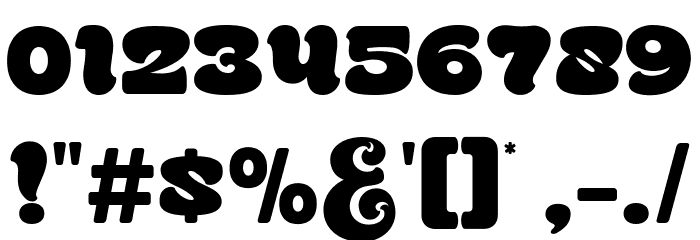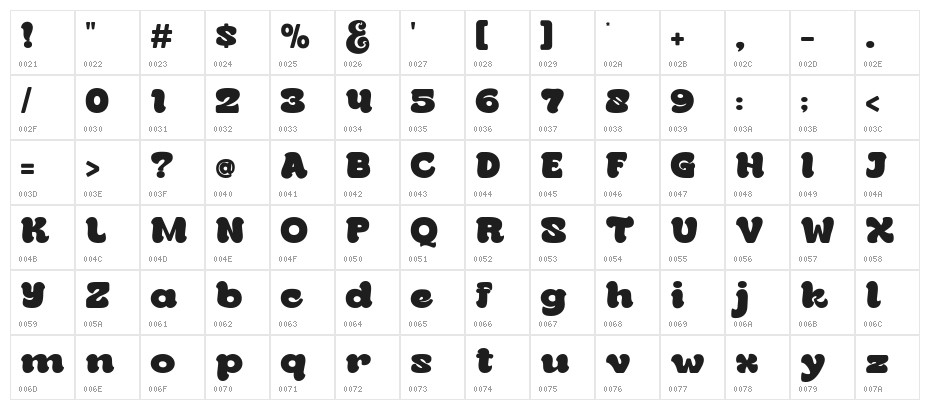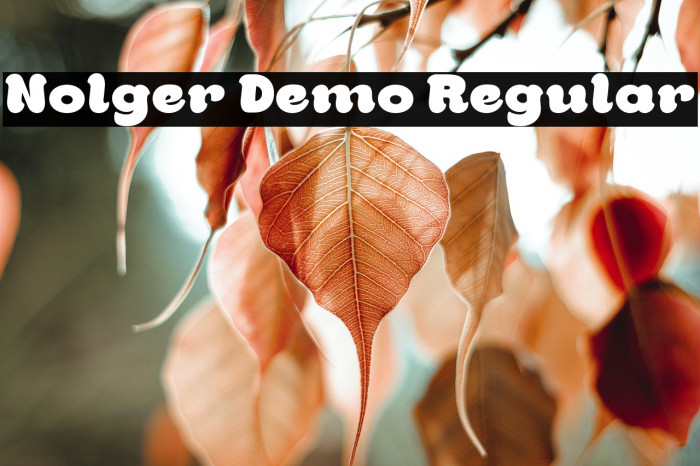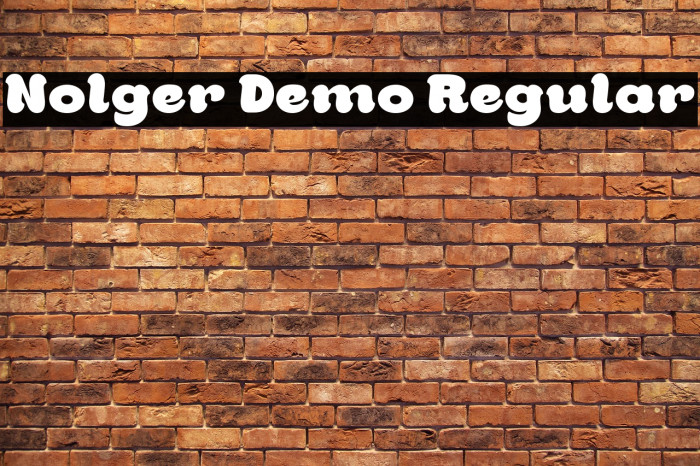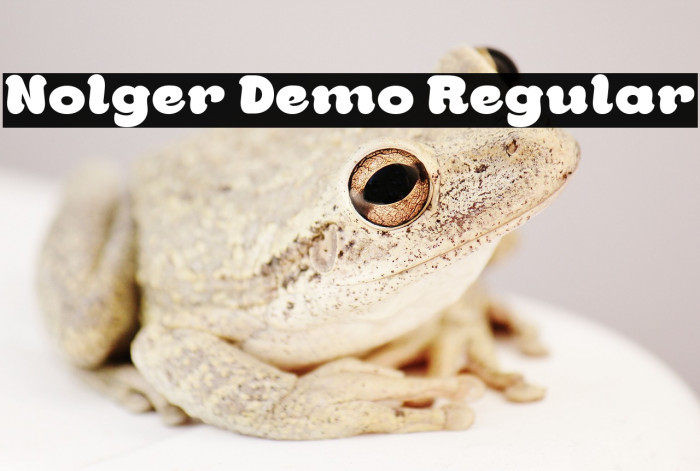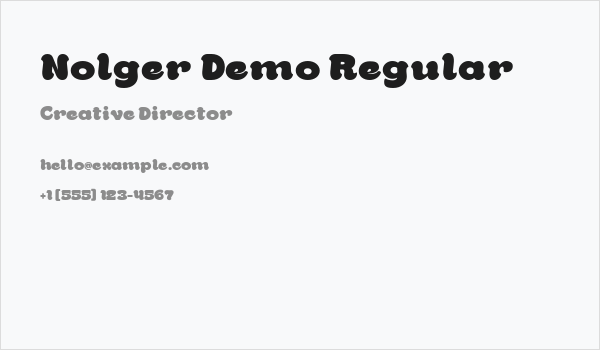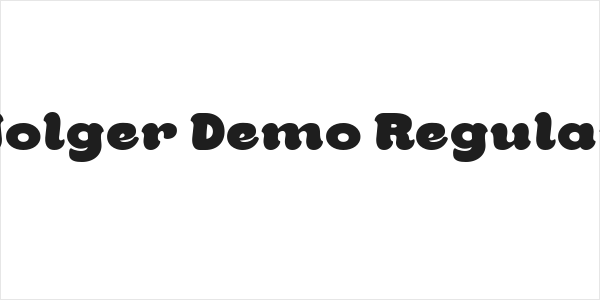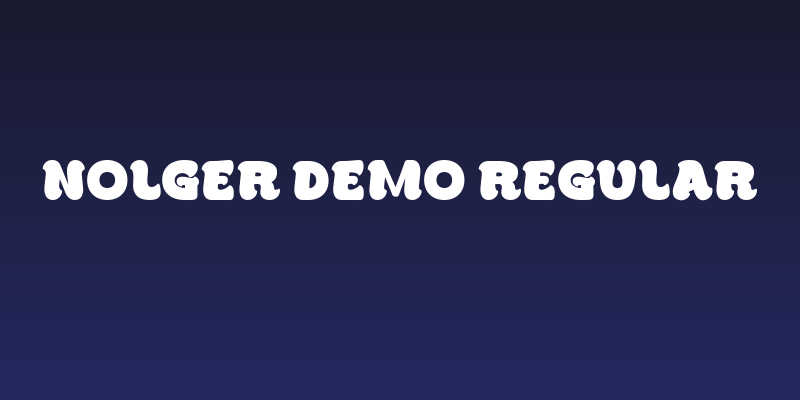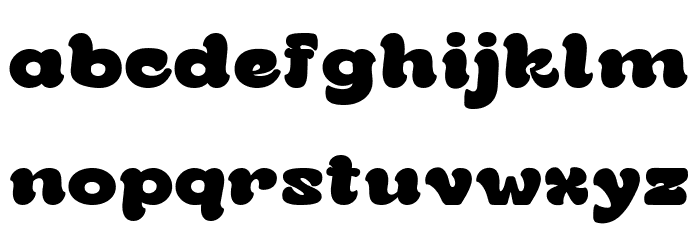
Nolger Demo Regular Font
Nolger Demo Regular Description
This font features a bold and playful design with rounded, bubbly characters that exude a sense of fun and creativity. The letters are thick and have a consistent weight throughout, giving them a strong presence on the page. The rounded edges and smooth curves contribute to a friendly and approachable aesthetic. The font maintains a uniform width across all characters, ensuring a balanced and cohesive look. Its unique style makes it ideal for projects that require a touch of whimsy and boldness.
| Overall Style | Playful, Creative |
| Proposed Projects | Ideal for children's books, playful branding, posters, and creative advertising campaigns. |